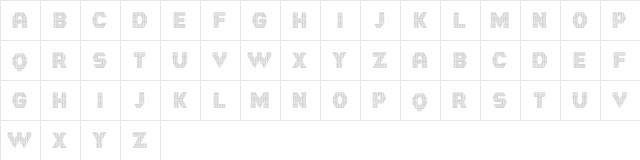
Hornettio Regular
Design Context for Hornettio Typeface
Hornettio offers clean, dependable letterforms without strong stylistic allegiance, making it a practical choice for designers who need flexibility.
Pro Tip: Use Hornettio in both headline and body roles to test its range before committing to a single application.